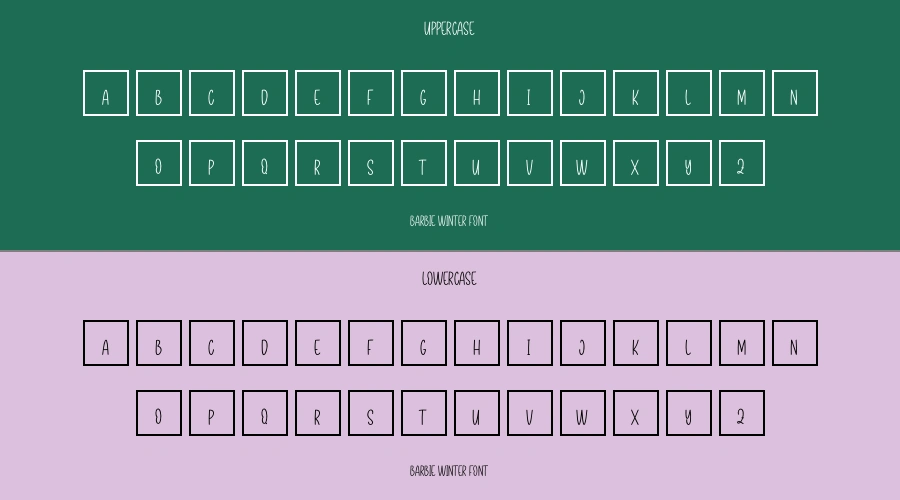
About Barbie Winter Font
Barbie Winter Font embodies typographic excellence through its masterful combination of artistic freedom and classic beauty. Created for event branding, this typeface delivers exceptional authenticity and industrial strength across all applications. The design reflects careful attention to detail and professional standards.
Advanced capabilities include distinctive elegant spacing and versatile language support, giving designers creative control. When used in artistic statements, Barbie Winter Font exhibits remarkable purchase influence. The harmonious balance between contrast level and cultural context sets this typeface apart.